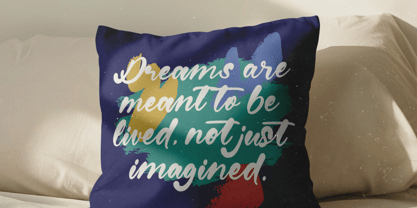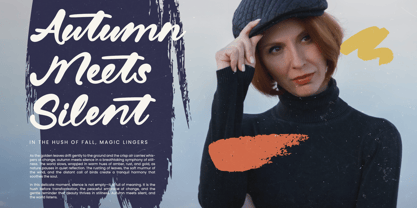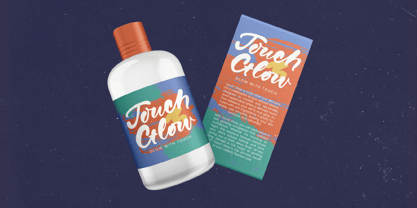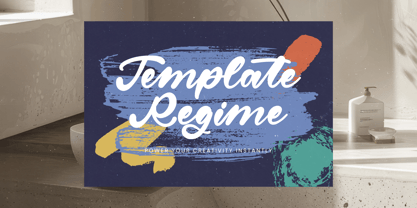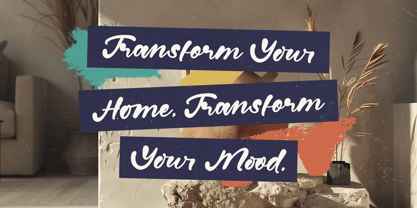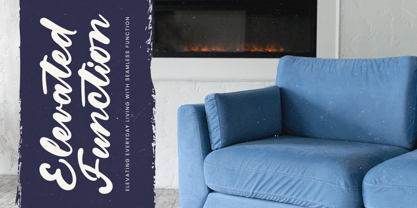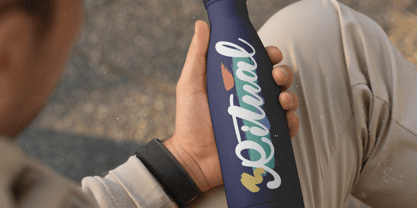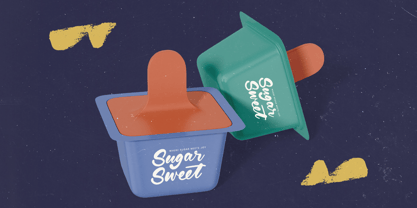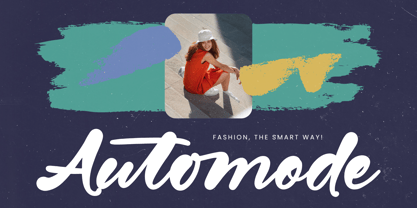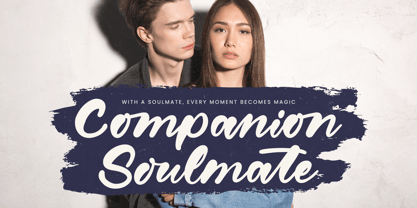
Bluder Quintal
by Stylishtype Studio
The Bluder Quintal Font Family was designed by Heru Utama Putra and published by Stylishtype Studio. Bluder Quintal contains 2 styles and family package options. More about this family
Bluder Quintal - Bold Calligraphy Font , from Stylishtype, Suitable for any projects such as: logos, branding projects, homeware designs, product packaging, mugs, quotes, posters, shopping bags, t-shirts, book covers, name card, invitation cards, greeting cards, label, photography, watermark, special events, and all your other luxury and beautiful projects that need a Luxury Script taste.
Bluder Quintal